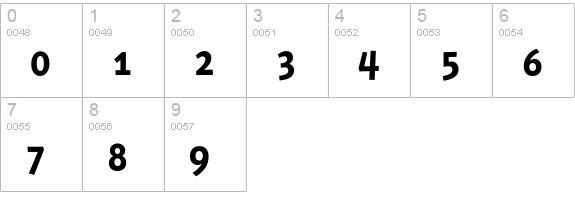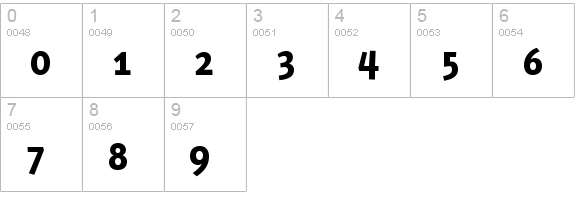
PedestriaMVB-Bold is a strong, high-contrast variant in the PedestriaMVB typeface family \xE2\x80\x94 well suited to headlines, attention-grabbing titles, and strong calls-to-action.
Introducing PedestriaMVB-Bold, a font that exudes confidence and strength with its bold and commanding presence. Designed with meticulous attention to detail, this typeface is perfect for making a bold statement in any design project. PedestriaMVB-Bold is characterized by its strong and sturdy letterforms, each bearing a unique and striking personality. Its thick and well-defined strokes create a visual impact that demands attention and ensures legibility even at small sizes. This font's versatility knows no bounds, making it suitable for a wide range of applications. Whether it's for headlines, logos, posters, or branding materials, PedestriaMVB-Bold adds a touch of sophistication and modernity to any design. What makes PedestriaMVB-Bold even more appealing is that it is freely available to download at FontsMarket.com. This means that you can easily access and use this remarkable font in your projects without any financial constraints. Its accessibility allows designers, students, and creative individuals alike to explore their artistic visions without limitations. With PedestriaMVB-Bold, you can effortlessly captivate your audience and leave a lasting impression. So why wait? Download this extraordinary font today and elevate your designs to new heights of excellence.